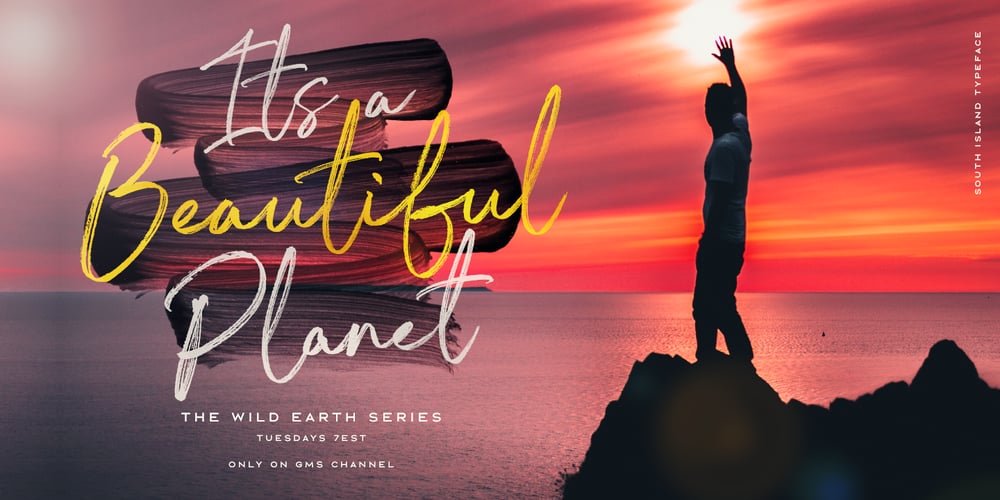
South Island Font Family was designed by Greg Nicholls and published by Rook Supply. South Island contains 2 styles and family package options. The goal with South Island was to make a font that looked authentically handwritten. Each character had to perfectly flow into the next and maintain a nice balance between variation and legibility. The typeface retains all the texture and grit of the original handwritten characters, making it especially powerful when used for large headers. South Island comes in a regular version, and a second version which contains alternate versions of each letter A-Z (both upper and lowercase). Try pairing it up with a more traditional serif or sans serif font for endless possibilities.